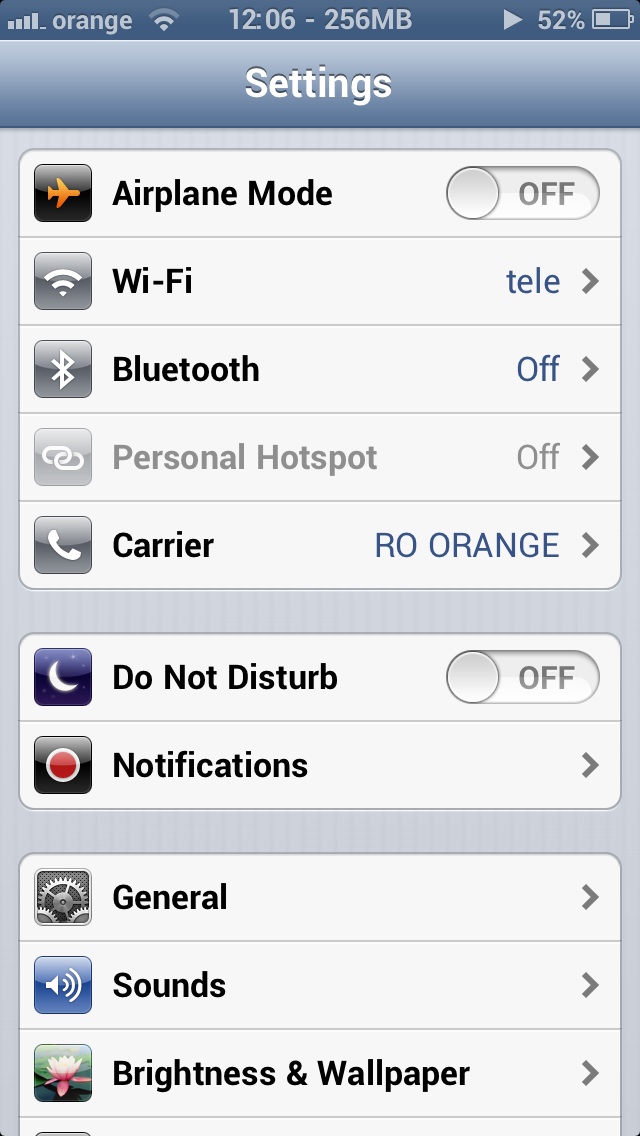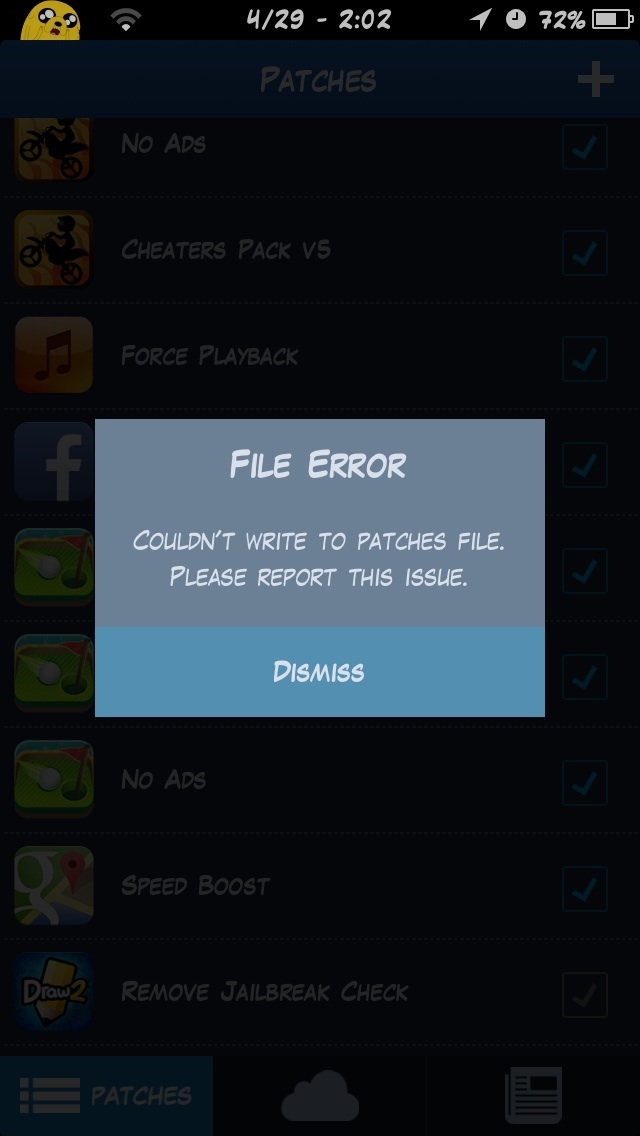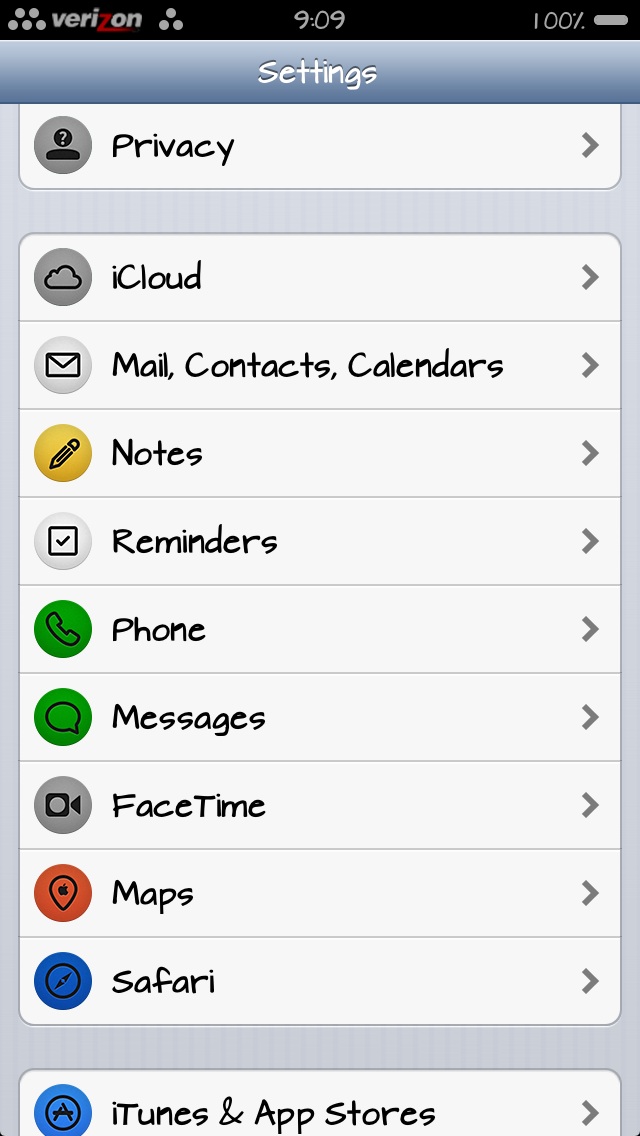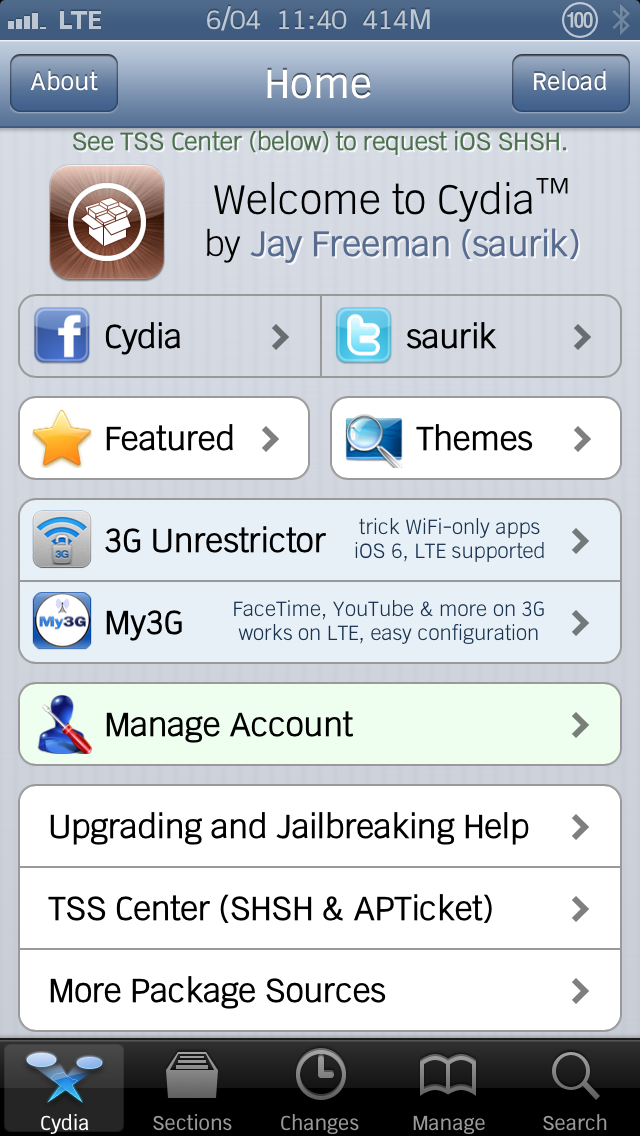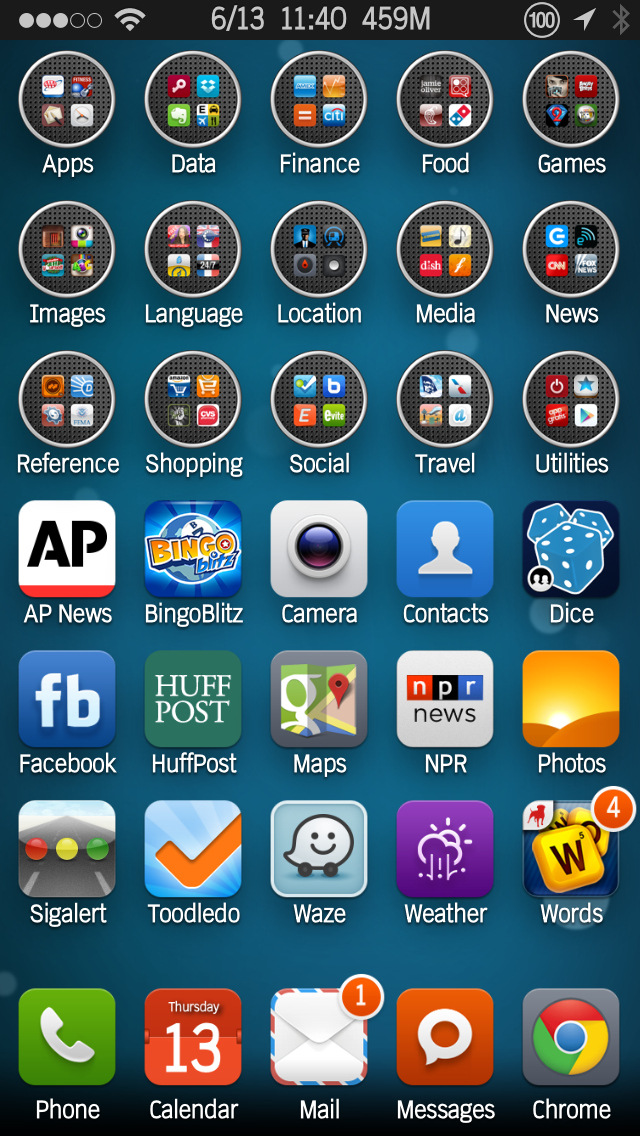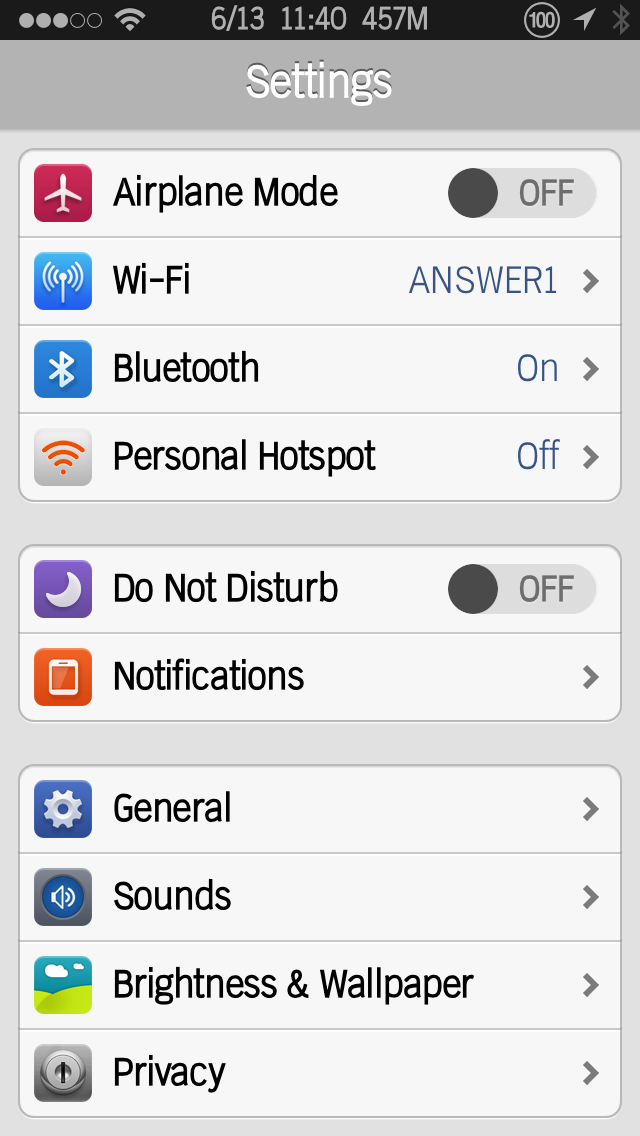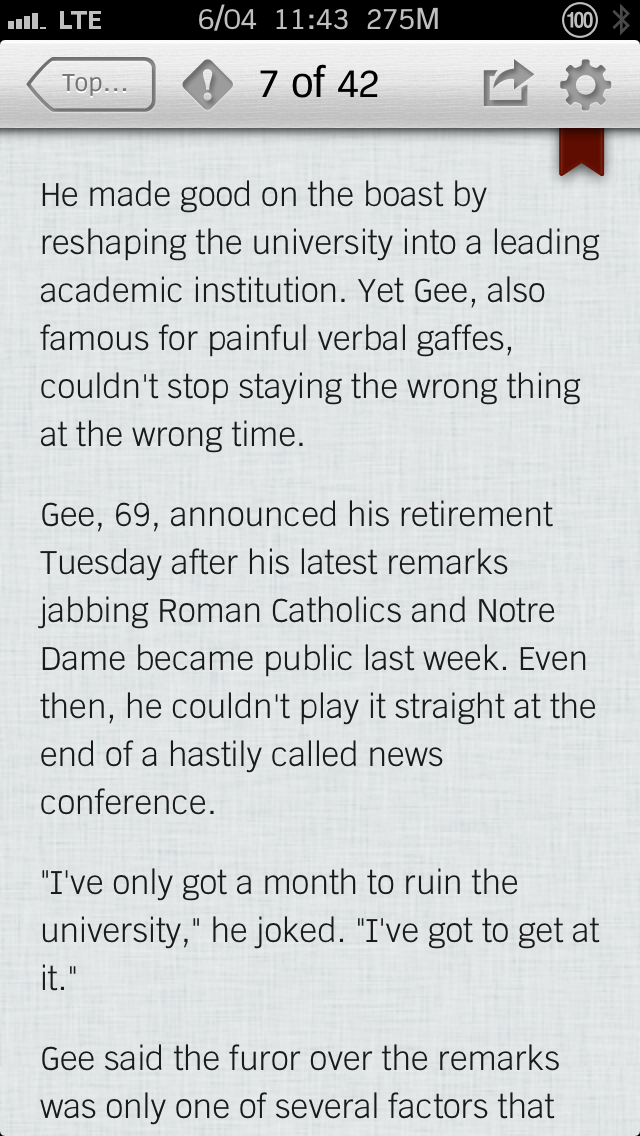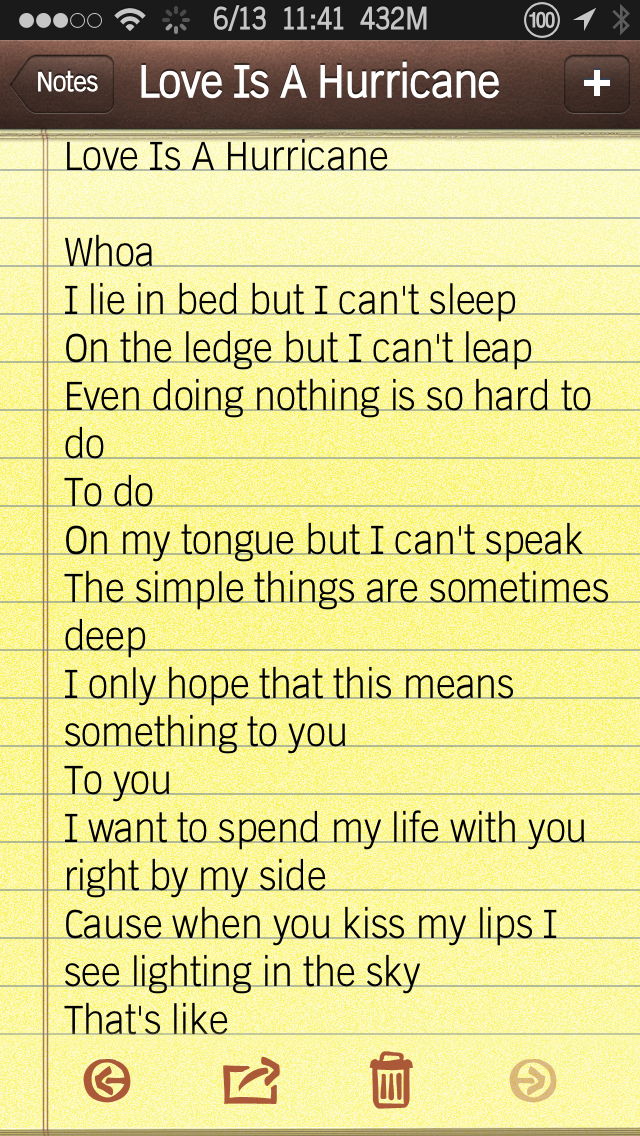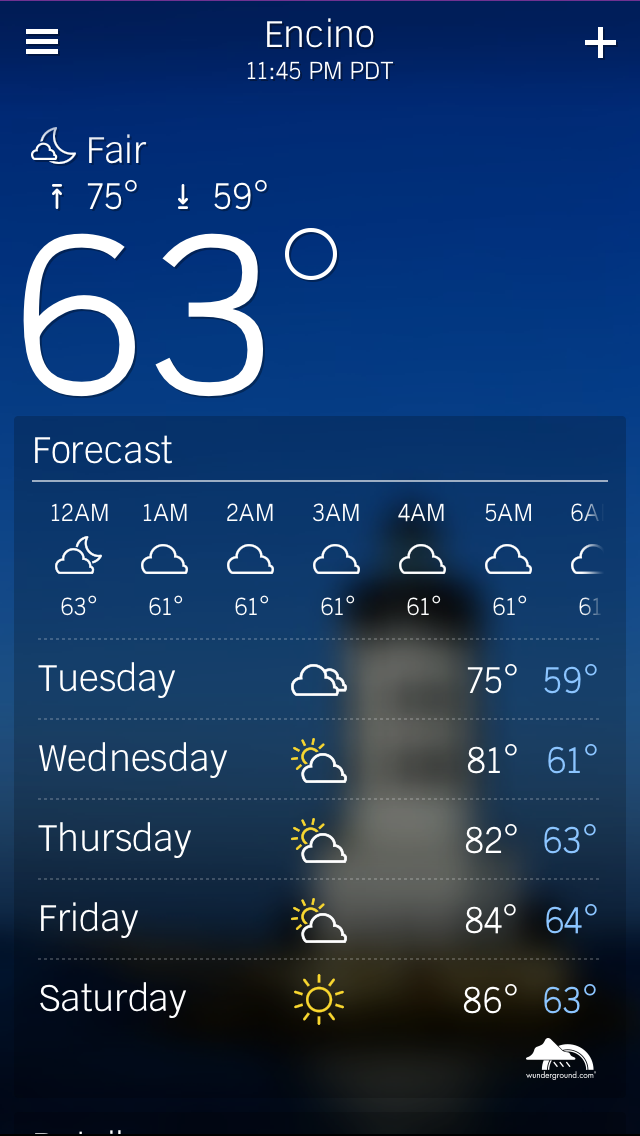
Roboto, nice and clean.
I hate to be that guy, but I'm dying to know, does anyone know what font this is? I'd greatly appreciate it if anyone knew. I would be forever in your debt. TIA!
That looks pretty cool I'll post it on reddit it too to see if anyone knows it there.
So funny you say that. I found that pic on the flex sub-reddit. I asked the poster what font it was but haven't heard back yet. This was yesterday. Please let me know what you find out. I'm dying to use it. I've been looking for a font just like this forever now. Honestly though I haven't put too much time into searching. I have searched but not too crazy. Thanks bro!
Hey if you're still looking for this font, I think I found it. I looked through a lot of pages in BytaFont and eventually stumbled on this. It's called Lafayette Comic Pro. Its awesome in some places of iOS but not so easy on the eyes in others (I just installed it and haven't seen it in action everywhere yet but when I checked my email I really wasn't pleased lol). I might combine it with another font to make up for these shortcomings.
I think I wouldn't mind it if it wasn't all caps. Is there a way of changing that? and how do you plan on using two fonts at the same time?
I am mainly using Coming Soon instead of Lafayette Comic Pro. It's awesome! To use two fonts (or more), just go to the advanced tab and select the areas of iOS where you want the fonts to be used. Coming Soon is sick though. I have Lafayette but only in a couple spots. Mostly using Coming Soon right now.
Oh that's really cool I didn't know BytaFont could do that. Thanks for the help. I'll check out Coming Soon too.
I am using a variation on TH Krub
The TH Krub font on BytaFont was 90% of what I was looking for - something that is clean, tall, compressed, and yet not too thin. However, the numbers in this font are shorter than the capital letters, and there were some other subtle things I didn't like. So I fired up FontCreator and adjusted the font to my satisfaction. The result is a font that is larger than most and yet still fits within expected confines.
Updated font